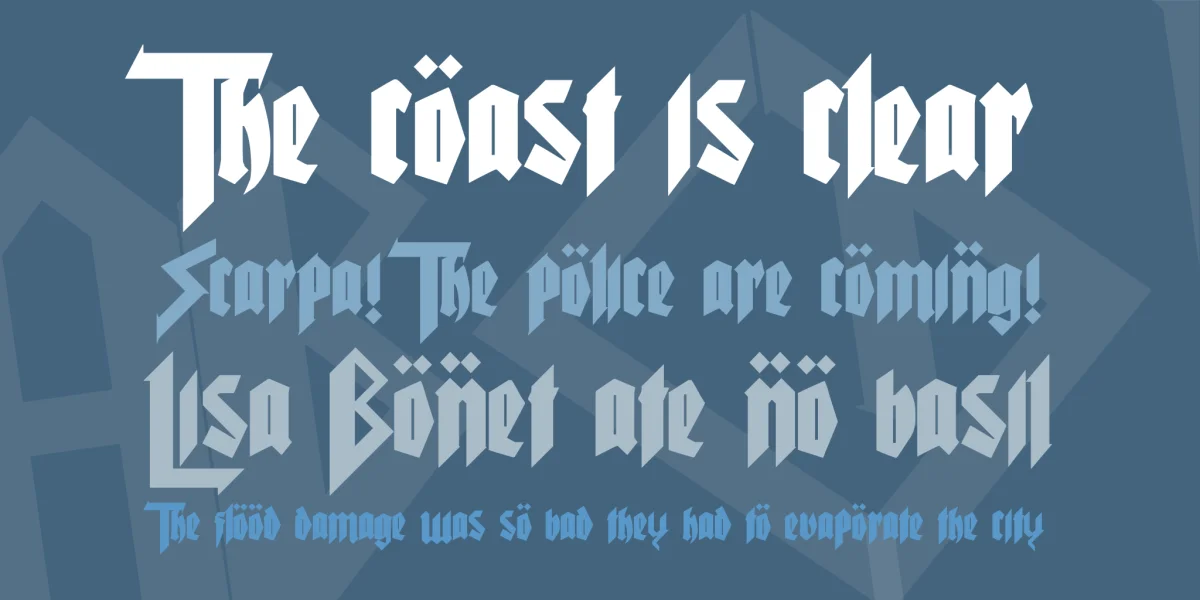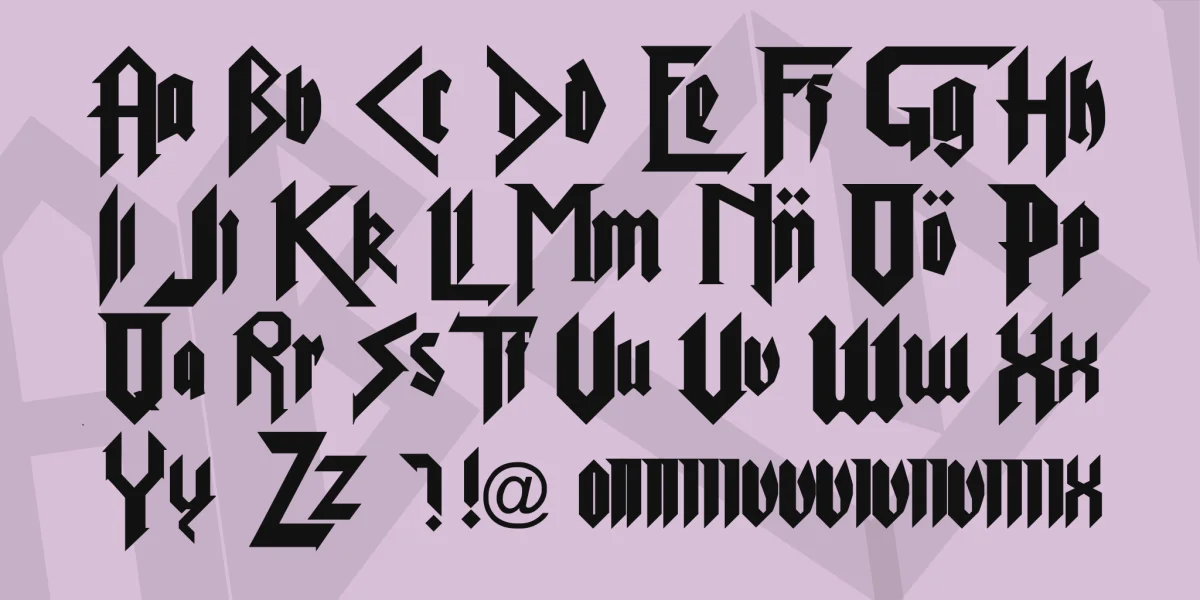
This is a basic, update of the original Pure Evil, except i changed most of the uppercase cuz i really f***ing hated how it turned out, it still sucks in many ways, but less than before..i hope ya'll agree. Besides that i made a couple of changes so it has a better spinal feel to it. I think this will be a good inspiration for people who want the metal look to a logo, but only inspiration.